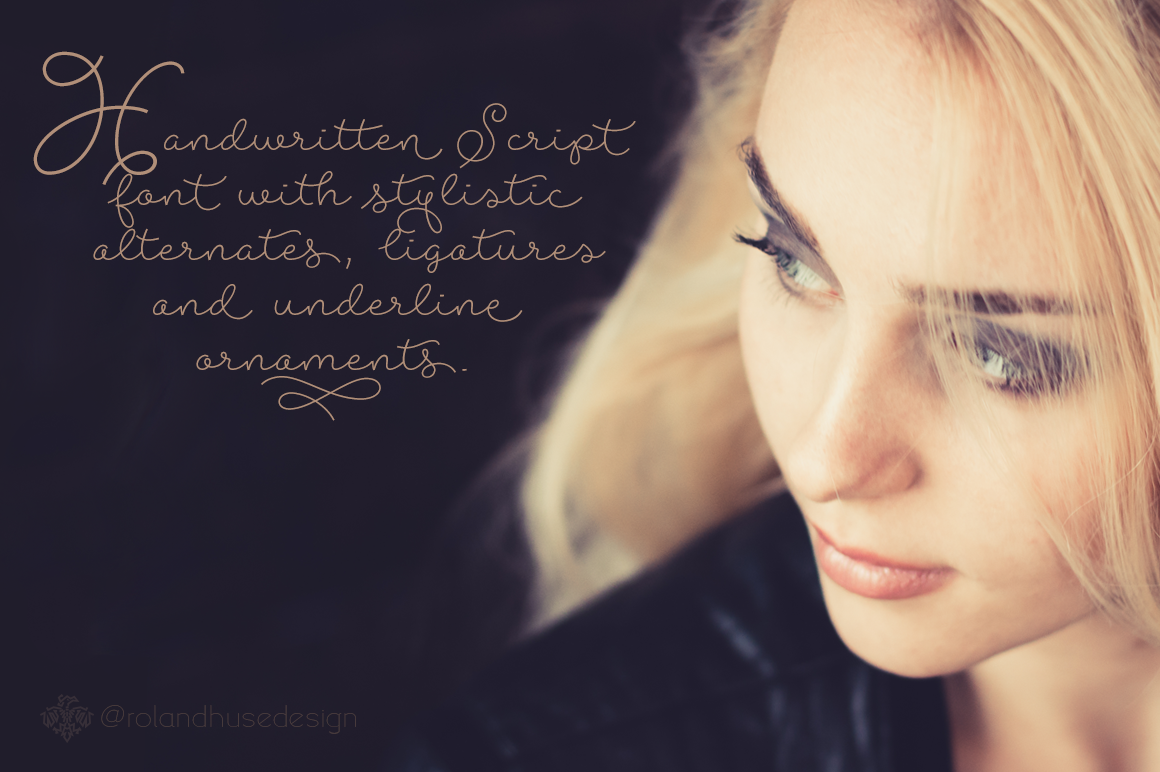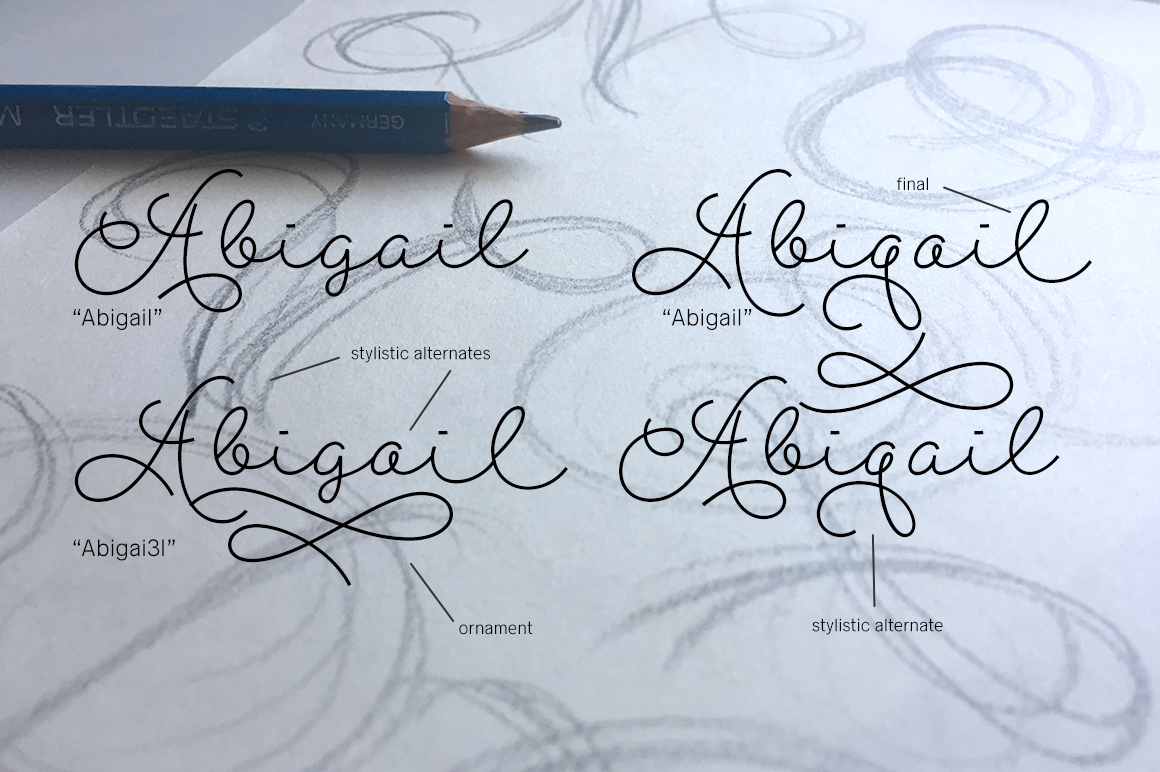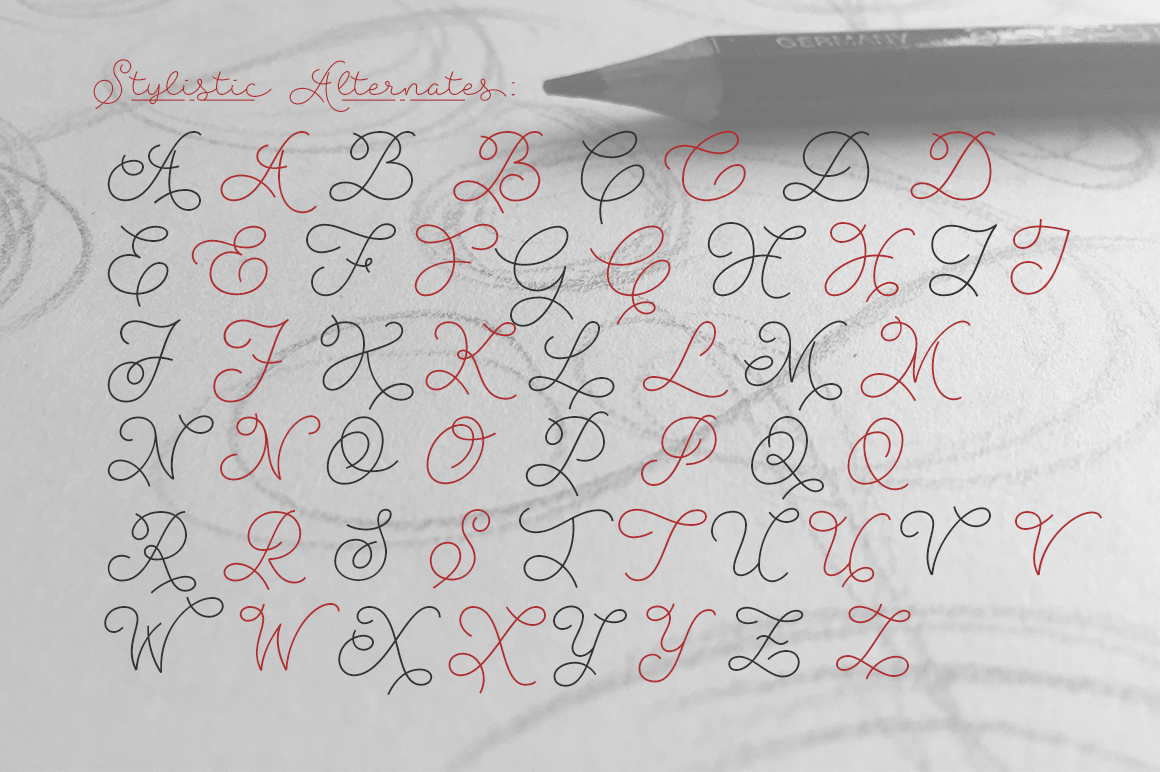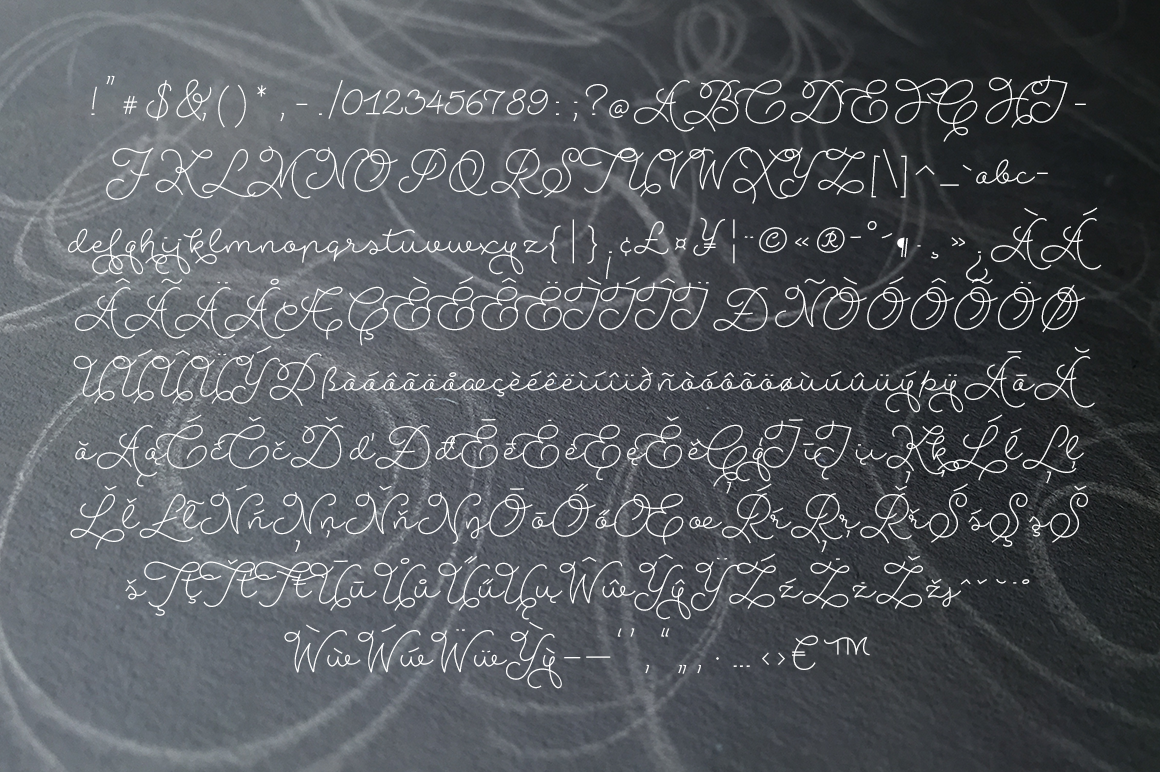
Introducing Abigail Script Font: A Beautiful Handwritten Monoline Cursive Font
Are you a designer or crafter looking for a unique and elegant font to add a personal touch to your projects? Look no further than the Abigail Script Font. This stunning handwritten, monoline cursive font is perfect for a variety of design applications, from wedding invitations and branding materials to craft projects and digital art.
What Makes Abigail Script Font Special?
Abigail Script Font is a carefully crafted font that offers a range of features that set it apart from other fonts. Here are some of the key characteristics that make this font so special:
- Handwritten, monoline cursive: Abigail Script Font has a beautiful, fluid script style that mimics the look of handwritten cursive writing.
- Stylistic alternates: All uppercase letters have stylistic alternates, allowing you to mix and match different versions of each letter to create a unique look.
- Ligatures and positional forms: The font includes ligatures and positional forms, which enable you to create more natural-looking connections between letters.
- Ornaments: The numbers 1-9 have been replaced with a few ornaments, adding a touch of whimsy and elegance to your designs.
Abigail Script Font is versatile and can be used for a range of design applications, including:
- Wedding invitations and stationery: The elegant, cursive style of Abigail Script Font makes it perfect for wedding invitations, save-the-dates, and other wedding-related stationery.
- Branding and packaging: The font’s unique style and features make it an excellent choice for branding and packaging design, adding a touch of personality to your products.
- Craft projects: Abigail Script Font is ideal for crafters who want to add a personal touch to their projects, such as handmade cards, gift tags, and scrapbooking.
- Digital art: The font’s beautiful, fluid style makes it perfect for digital art, including illustrations, graphics, and social media graphics.
Tips for Using Abigail Script Font
Here are a few tips for getting the most out of Abigail Script Font:
- Use it sparingly: Because of its elegant, cursive style, Abigail Script Font works best when used sparingly. Use it for headings, titles, or key phrases to add emphasis and visual interest.
- Experiment with stylistic alternates: Take advantage of the font’s stylistic alternates to create a unique look that reflects your brand or personal style.
- Pair it with a sans-serif font: Pair Abigail Script Font with a sans-serif font to create a beautiful contrast that adds visual interest to your designs.
Abigail Script Font is a beautiful, elegant font that is perfect for designers and crafters looking to add a personal touch to their projects. With its handwritten, monoline cursive style, stylistic alternates, ligatures, and positional forms, this font offers a range of features that make it versatile and easy to use. Whether you’re designing wedding invitations, branding materials, or craft projects, Abigail Script Font is sure to become a favorite in your font collection.